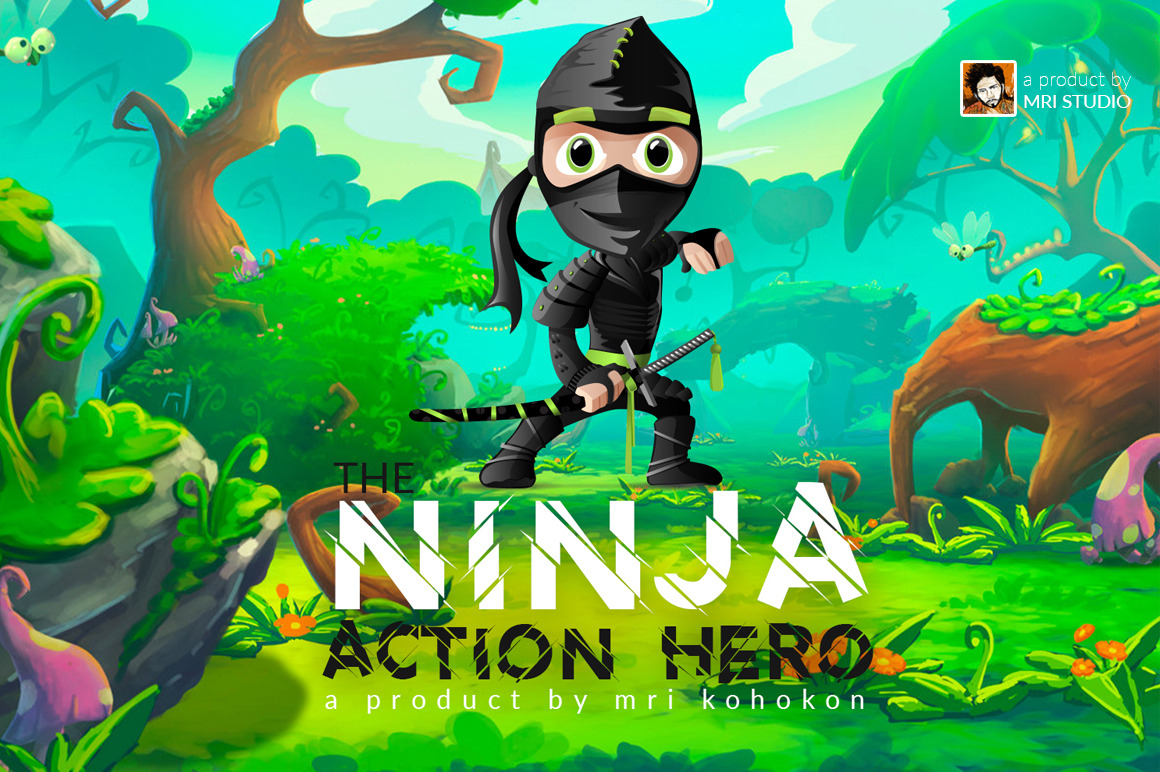
Ninja Font
" Ninja Font " is a stylish Font. Available in Regular Font version with all special characters.
Perfect line path
Easy to Mach Project
It’s useful for any Design project. Movie Poster,Flyer, movie name, card, e-card, Good for Logos & Headlines, Poster,Tag design, Newspaper & Magazine Ad Design and many more. True type and Open type font files